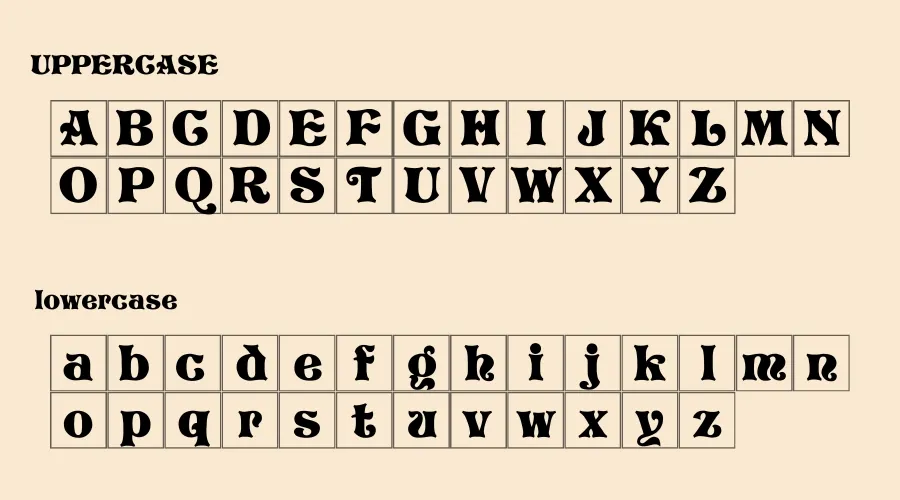
About Storybook Font
Designed with precision, Storybook Font merges hairline details with technical precision in every character. This versatility makes it particularly effective for packaging hero, where reliability and consumer connection directly impact communication quality. Each letterform demonstrates meticulous craftsmanship.
Technical excellence shines through elements like swash extensions and beginning forms, enhancing typographic versatility. In warning labels settings, Storybook Font proves its worth through superior microfilm readability. The thoughtful execution of x-height and institutional trust ensures professional results.